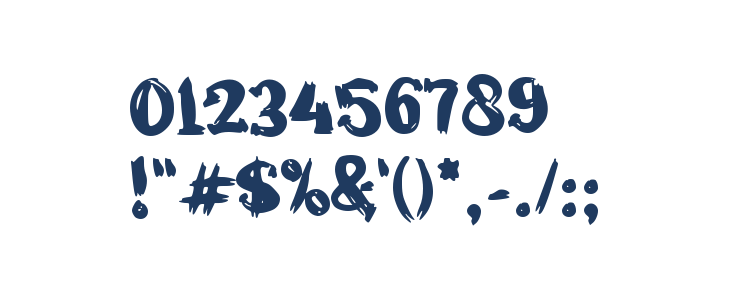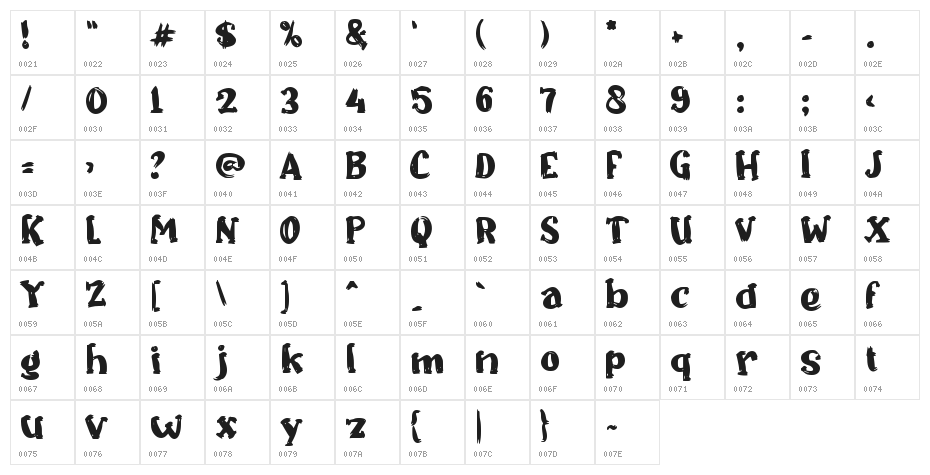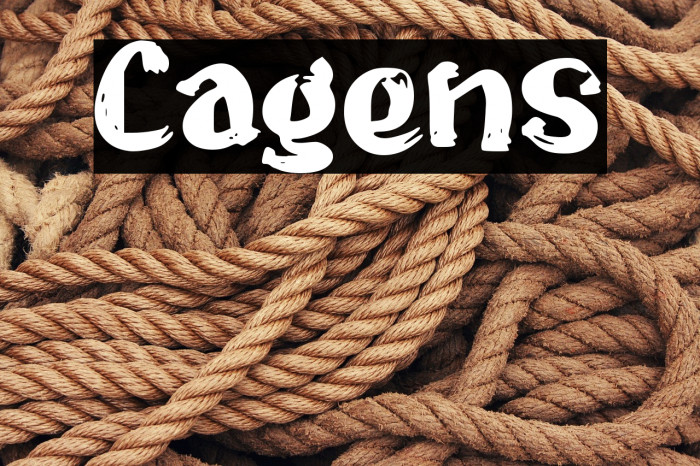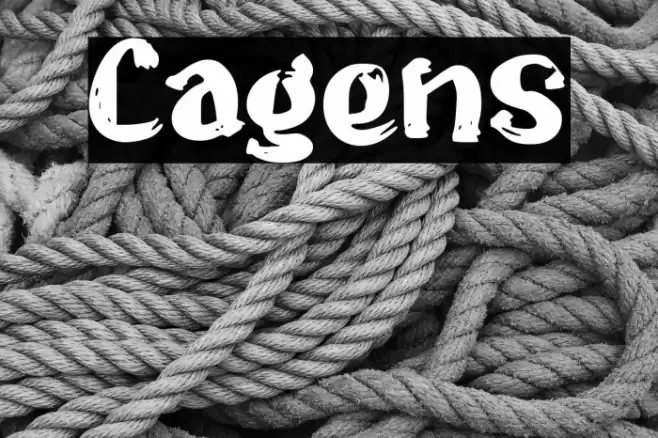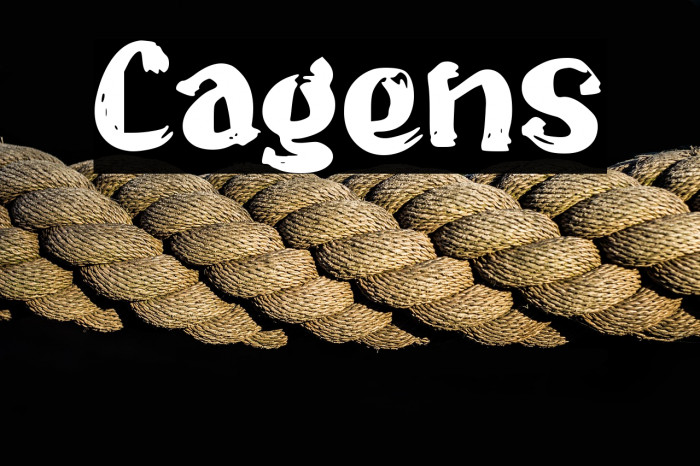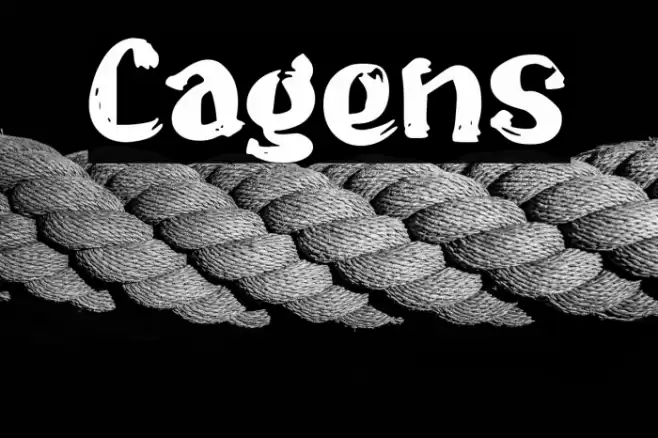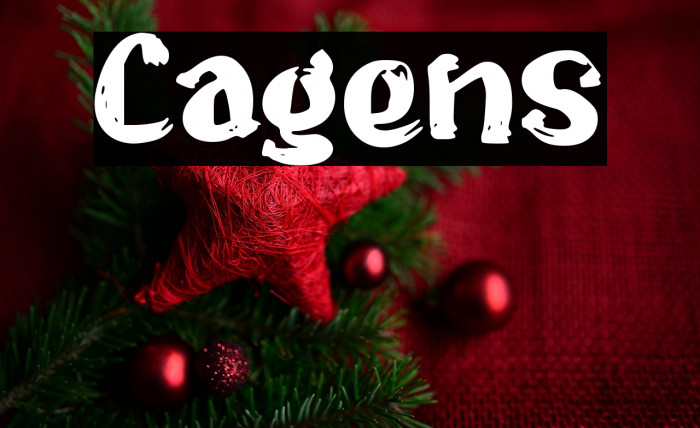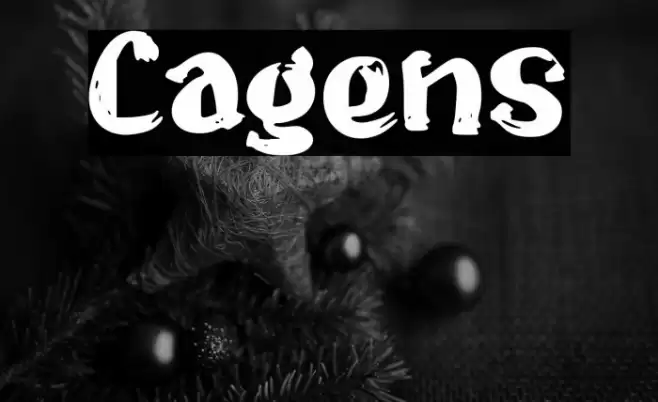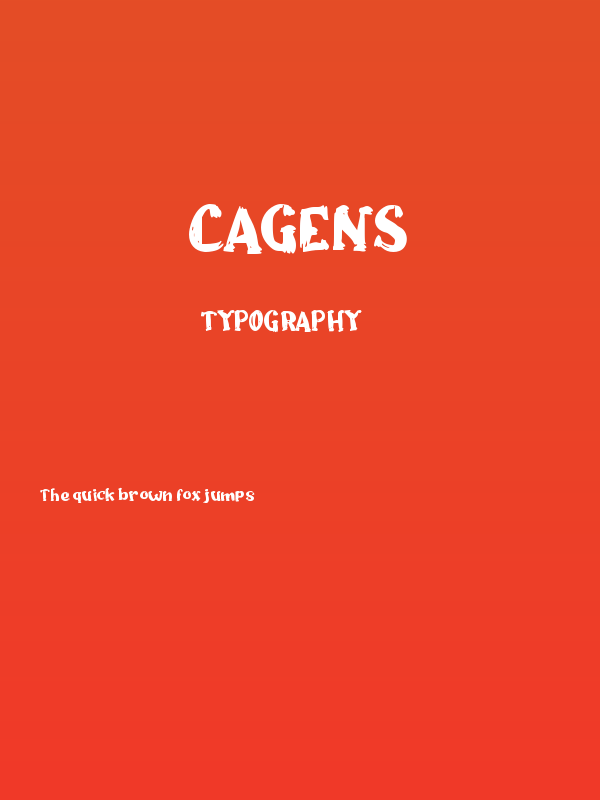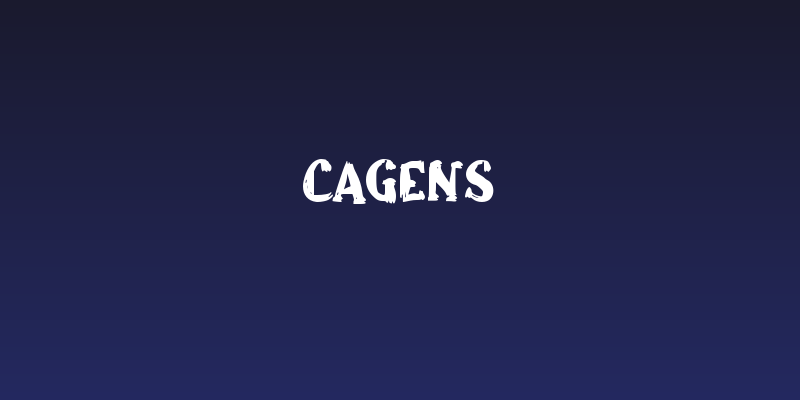
Cagens Font
Cagens Description
This font features a bold and expressive style with a brush-like texture, giving it a dynamic and energetic appearance. The characters are slightly irregular, adding a handcrafted feel that is both artistic and playful. The uppercase and lowercase letters maintain a consistent style, with thick strokes and a slightly rough edge that enhances its visual impact. The numerals and special characters follow the same design, ensuring uniformity across all elements. This font is ideal for projects that require a strong, creative presence.
| Proposed Projects | Ideal for posters, logos, branding, and any creative projects requiring a bold statement. |